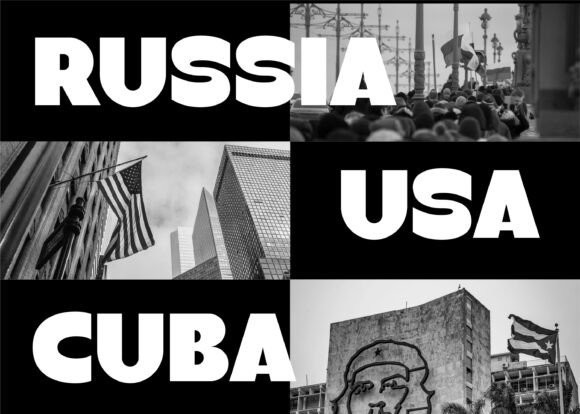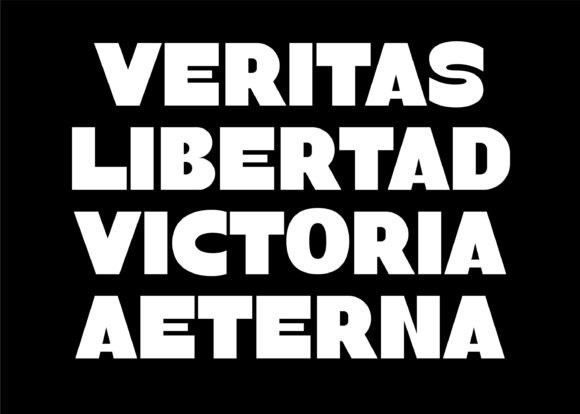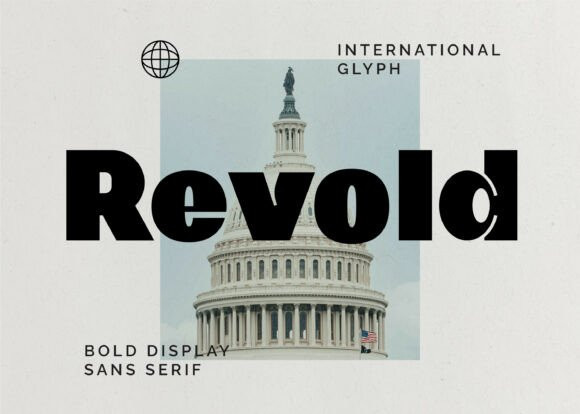
Revold Font
Revold Font a rebellious, revolutionary vibe. Created to bring a sense of strength and defiance to your work. With its commanding structure and unyielding weight, it is an ideal choice for streetwear branding, poster designs, or editorial layouts that demand a confident, powerful look.